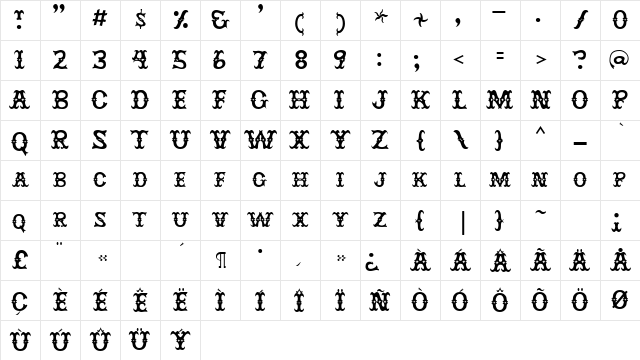
JesterTwo Regular
Design Context for JesterTwo
JesterTwo is a composed and adaptable typeface that performs quietly and consistently across a wide range of design contexts.